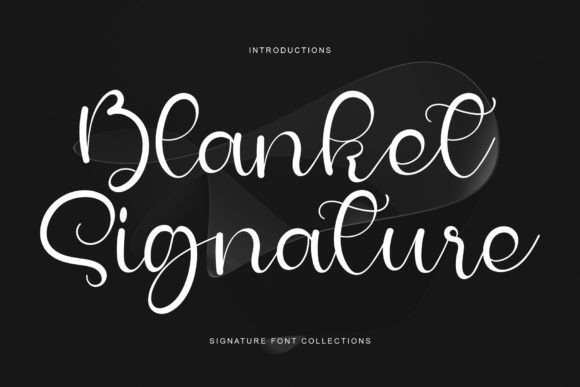
The Perfect Addition to Your Font Library
Have you ever been working on a design project and felt like something was missing, like the perfect finishing touch? That’s exactly what I experienced when I first laid eyes on the Blanket Signature Font. It was as if I had been searching for a unique handwriting style to elevate my work, and finally, I found it.
The Blanket Signature Font is a modern and friendly handwritten font that’s been carefully crafted to bring a touch of warmth and personality to any creation. Whether you’re a graphic designer, a writer, or a social media enthusiast, this font has the potential to take your work to the next level. Its neatly crafted and highly detailed design makes it a valuable asset to any font library, and I’m excited to share its benefits with you.
Blanket Signature Font Key Features
- Unique Characteristics: Features a modern, handwritten style with subtle texture and imperfections, adding a touch of warmth and personality to digital signatures.
Blanket Signature Font Review
I recently had the chance to work with the Blanket Signature Font, and I wanted to share my honest thoughts on this stylish script font.
- Unique aesthetic: The Blanket Signature Font has a distinctive, hand-drawn feel that can add a touch of elegance to any project.
- Customizable: This font offers a range of options for customization, including different font weights and sizes, making it easy to adapt to various design needs.
- Limited expressiveness: While the Blanket Signature Font is great for certain design projects, it may not be the best choice for more complex or technical content.
- Potential for overuse: The unique style of this font may lead to overuse, which can result in a lack of visual interest and cohesion in a design.
The Blanket Signature Font is a beautiful, versatile font that can elevate a wide range of design projects. However, its limitations should be considered when choosing a font for more complex or technical content. Overall, I would recommend this font for designers looking to add a touch of sophistication to their work.
Blanket Signature Font Practical Application Guide
For a more authentic look, pair the Blanket Signature Font with a handwritten or script font for contrast.
For a more realistic look, use the font in conjunction with a textured background or subtle effects.
For a cohesive look, use the Blanket Signature Font consistently throughout your presentation or document.
The Blanket Signature Font is ideal for:
- Personal branding and marketing materials.
- Wedding stationery and invitations.
- Event signage and banners.
- Handwritten-style quotes and graphics.